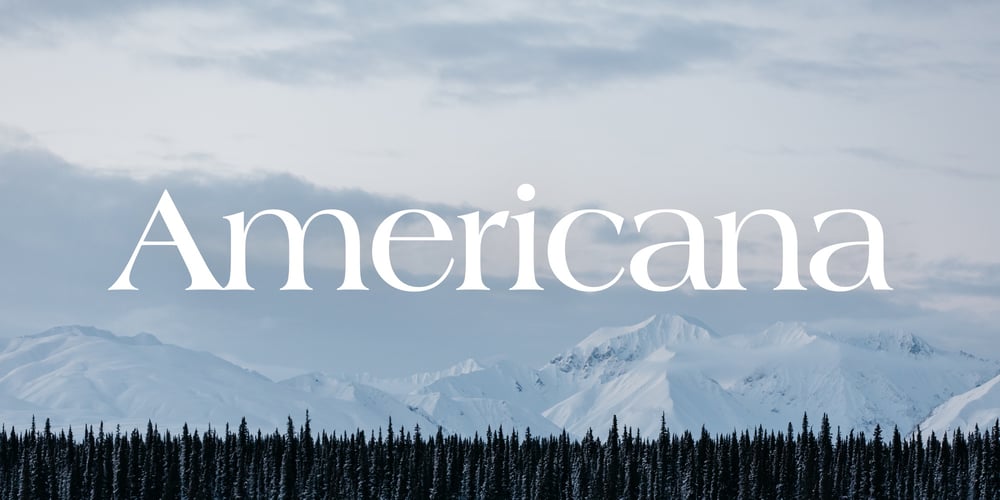
Americana Font Family was designed by Richard Isbell, Whedon Davis and published by Bitstream. Americana contains 5 styles and family package options. An original design by Richard Isbell for ATF; in exaggerating the tapered stroke introduced eleven years earlier in Hermann Zapf’s Optima, Isbell created the first flareserif to achieve popularity in the United States.